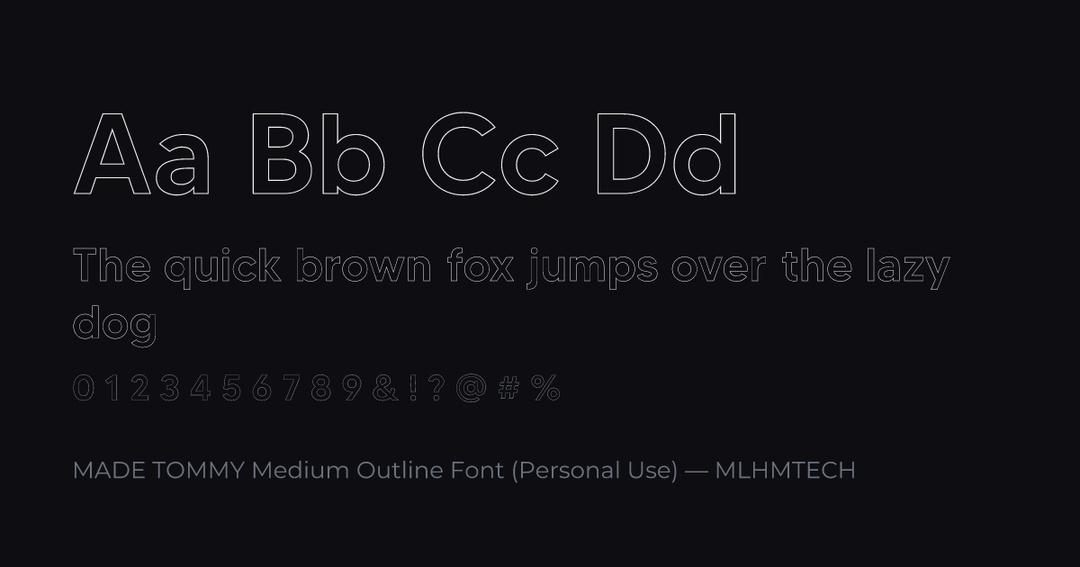
MADE TOMMY Medium Outline Font (Personal Use)
A clean, medium-weight outline font ideal for eye-catching headlines and modern branding. Perfect for personal projects.
MADE TOMMY Medium Outline is a geometric sans-serif font with a distinctive outline style. Its medium weight and clear letterforms make it highly legible while adding a contemporary edge to any design.
This font is perfect for creating impactful titles, logos, posters, and social media graphics. The outline effect gives a modern, airy feel that works well in both digital and print media.